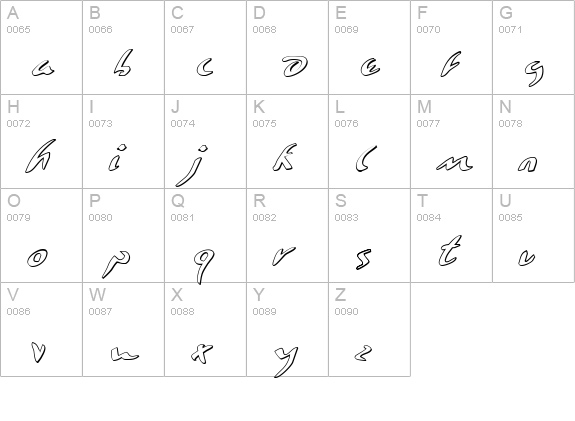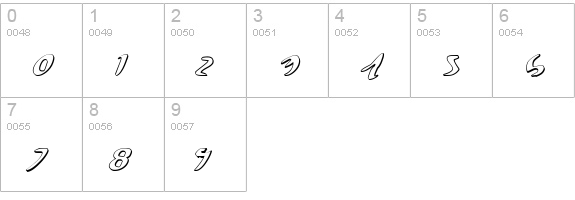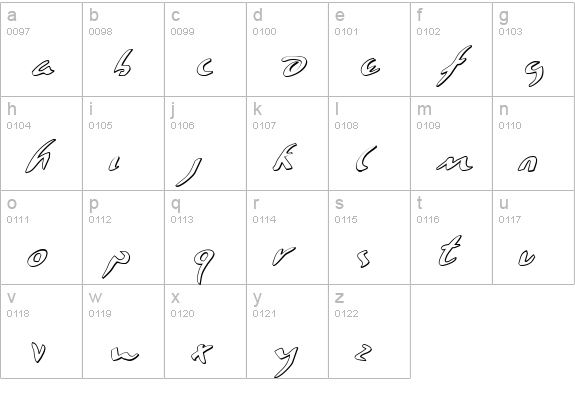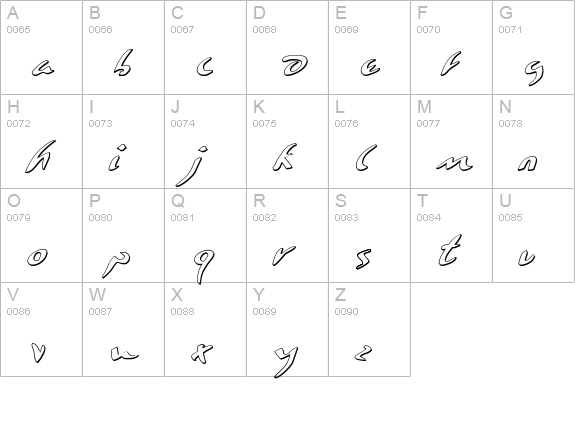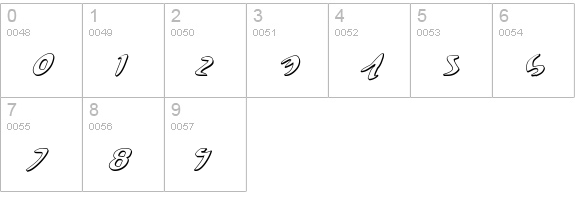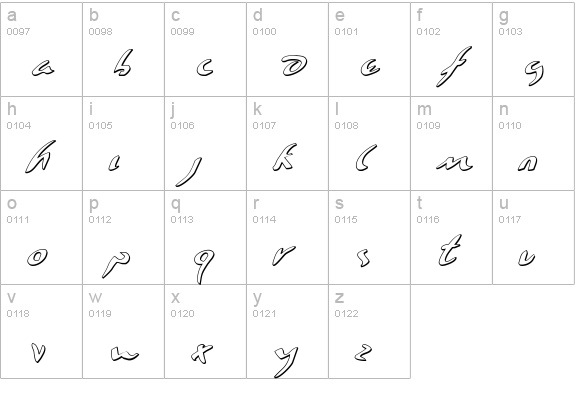
Eagleclaw 3D Italic is a distinctive, italic variant in the Eagleclaw typeface family \xE2\x80\x94 well suited to design and typography projects.
Introducing Eagleclaw 3D Italic font, a bold and dynamic typeface designed to make a powerful statement. With its three-dimensional effect and sleek italic styling, Eagleclaw is perfect for projects that require a modern and edgy feel. Whether you're designing a logo, poster, or website, this font will surely grab attention and leave a lasting impression. The best part? Eagleclaw 3D Italic font is available for free download at FontsMarket.com. Take advantage of this incredible offer and add a touch of sophistication to your designs with Eagleclaw 3D Italic font today!